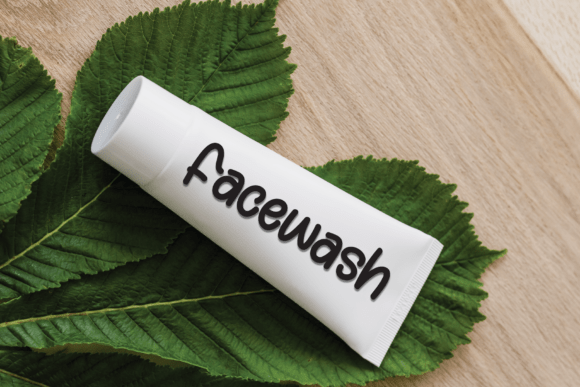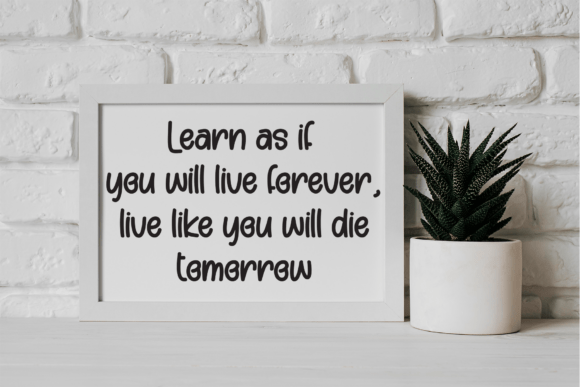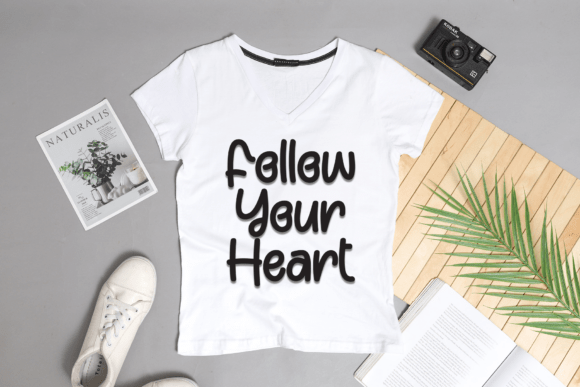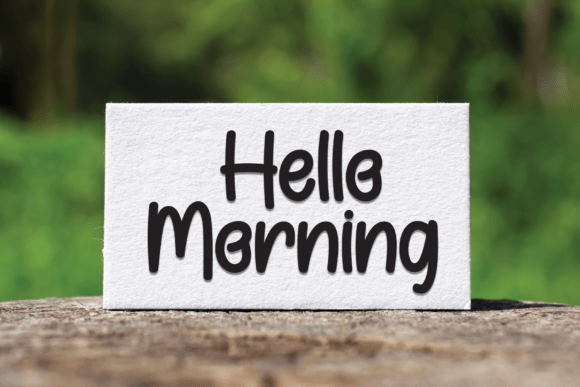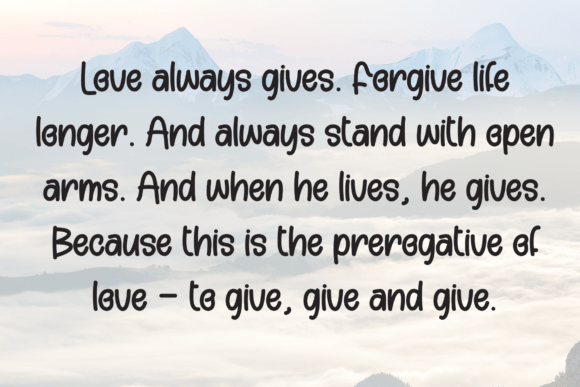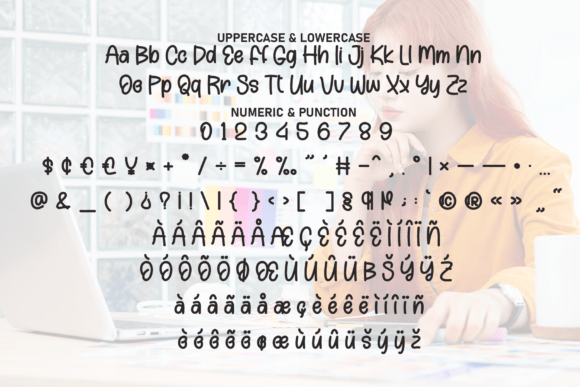
Bulky Designer Font: Elevate Your Designs with a Casual and Neat Display Font
In the world of design, typography plays a crucial role in conveying messages and capturing the audience’s attention. A well-chosen font can make all the difference in transforming a design from ordinary to extraordinary. If you’re a designer or crafter looking for a font that exudes warmth, clarity, and approachability, look no further than Bulky Designer Font. In this article, we’ll explore the features and benefits of this versatile font and how it can elevate your designs.
Introducing Bulky Designer Font
Bulky Designer is a casual and neat display font designed to bring warmth and clarity to your projects. With its clean structure and approachable style, it suits a wide range of design applications, from branding and headlines to everyday designs. The font’s balanced letterforms offer exceptional readability and charm, making every message feel genuine and inviting.
Key Features of Bulky Designer Font
- Clean Structure: Bulky Designer Font boasts a clean and organized structure, making it easy to read and understand.
- Approachable Style: The font’s casual and friendly style creates a welcoming atmosphere, perfect for designs that require a personal touch.
- Balanced Letterforms: The font’s carefully crafted letterforms ensure excellent readability and a touch of elegance.
- Versatility: Bulky Designer Font is suitable for various design projects, including branding, headlines, posters, and more.
Benefits of Using Bulky Designer Font
So, why choose Bulky Designer Font for your design projects? Here are some benefits that make it an excellent addition to your typography arsenal:
- Enhanced Readability: The font’s clean structure and balanced letterforms ensure that your message is conveyed clearly and effectively.
- Emotional Connection: The approachable style and charming letterforms of Bulky Designer Font help create an emotional connection with your audience.
- Time-Saving: With its versatility and wide range of applications, Bulky Designer Font saves you time and effort in finding the perfect font for your project.
- Unique Identity: The font’s distinctive style and character help establish a unique identity for your brand or design.
Design Applications for Bulky Designer Font
Bulky Designer Font is an incredibly versatile font that can be used in various design applications, including:
- Branding: Use Bulky Designer Font to create a strong brand identity that exudes warmth and approachability.
- Headlines: Add a touch of elegance and sophistication to your headlines with this beautiful font.
- Posters: Create eye-catching posters that grab attention with Bulky Designer Font.
- Packaging: Use the font to add a personal touch to your packaging designs.
Tips for Using Bulky Designer Font
To get the most out of Bulky Designer Font, here are some tips to keep in mind:
- Experiment with Sizes: Play with different font sizes to create visual hierarchy and add emphasis to your design.
- Pair with Other Fonts: Combine Bulky Designer Font with other fonts to create a unique and harmonious typography.
- Adjust Tracking: Adjust the tracking to create a more open or closed feel, depending on your design requirements.
In conclusion, Bulky Designer Font is an exceptional display font that offers a perfect blend of warmth, clarity, and approachability. Its clean structure, balanced letterforms, and versatile style make it an excellent choice for designers and crafters looking to elevate their designs. Whether you’re working on branding, headlines, or everyday designs, Bulky Designer Font is sure to bring a touch of elegance and sophistication to your projects.